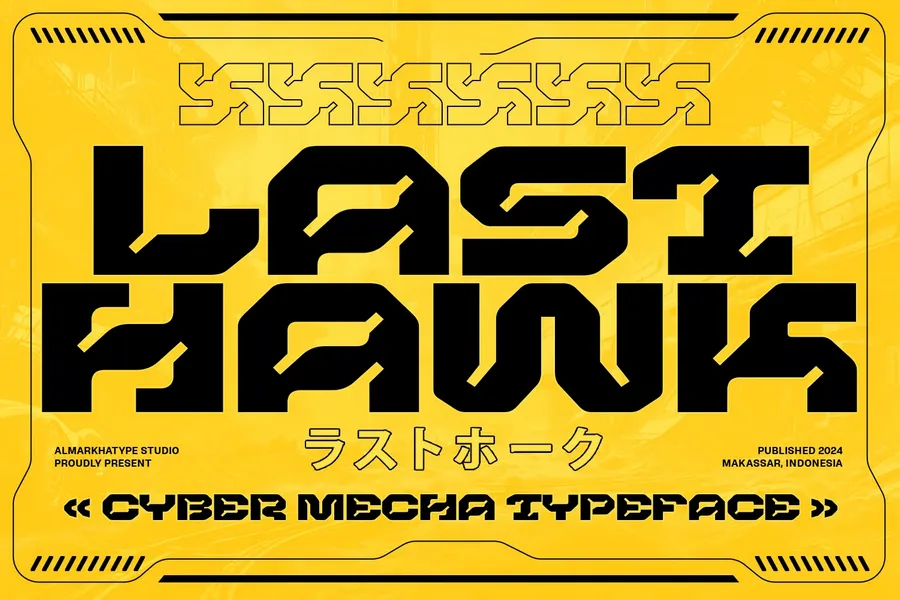
Last Hawk
Last Hawk – Cyber Mecha Display Typeface
Step into the future with Last Hawk, a cutting-edge display font built for speed, precision, and impact. Inspired by cybernetic tech, mecha machines, and sci-fi warfare, this font brings bold geometric shapes and sharp mechanical angles to your creative arsenal.
Designed to dominate screens and command attention, Last Hawk is perfect for high-tech branding, game titles, sci-fi UI interfaces, posters, trailers, and digital experiences that need to feel powerful, aggressive, and futuristic. Why Choose Last Hawk?
Futuristic Precision – Clean lines and angular forms evoke machine-like power and digital evolution.
High-Impact Display – Crafted to stand out in large formats like titles, banners, or bold branding.
Cyber-Mecha Aesthetic – Blends industrial sci-fi elements with a modern digital edge.
Ideal For:
Sci-fi titles & intros
Esports branding & game UI
Futuristic tech logos
Movie posters & trailers
Digital dashboards & HUDs
Last Hawk isn’t just a font—it’s a design weapon for the creators of tomorrow.